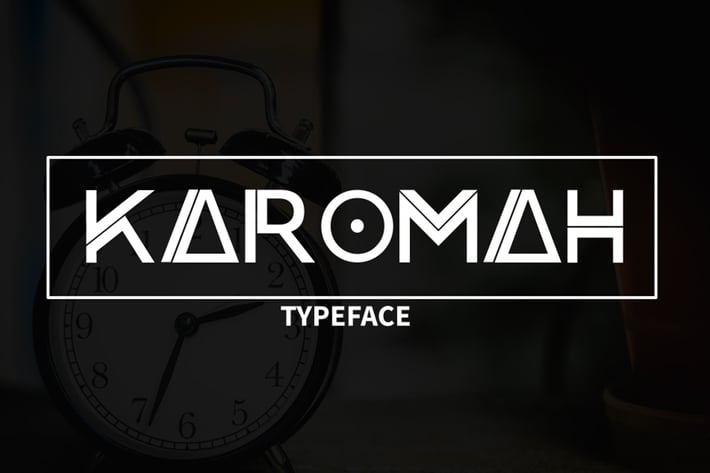
Karomah Typeface Font
Karomah is a typeface designed by Haikal. It was created as the sans-serif, so it shares a similar calligraphy-inspired, humanist design.